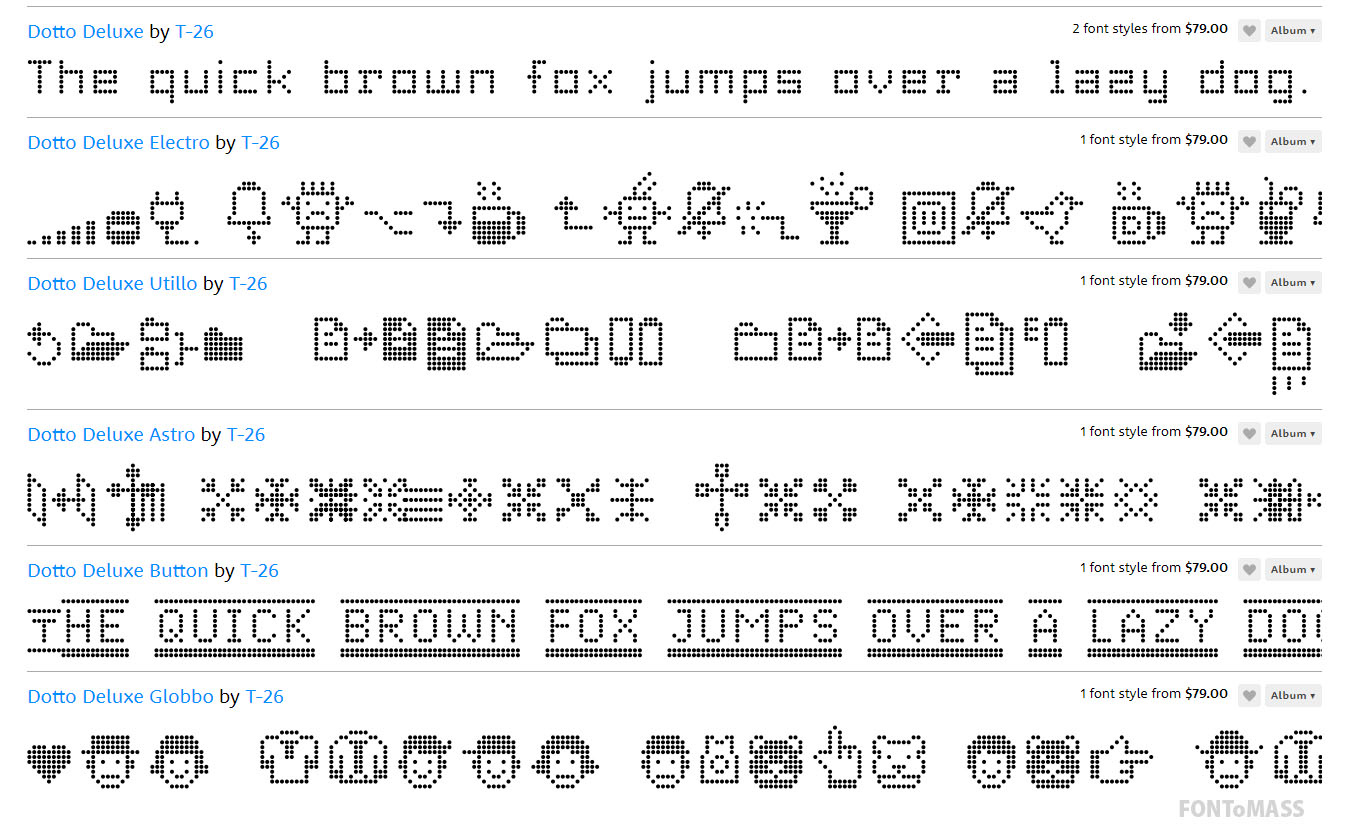
Dotto Font
This playful typeface is perfect for children's brands, toy packaging, educational materials, fun app interfaces, craft projects, birthday party decorations, whimsical logos, and creative workshop signage. Dotto Font brings delightful charm to any project where creativity and lighthearted personality need to be expressed through engaging typography.
What makes Dotto Font so exciting is its distinctive dotted design elements that create visual texture and playful rhythm. The font features carefully crafted letterforms with strategic dot patterns that add dimension and tactile appeal to every character. Each glyph demonstrates thoughtful attention to maintaining readability while incorporating unique dotted details that spark curiosity and engagement. The typeface's whimsical nature creates an immediate sense of fun and creativity, making it perfect for brands and projects targeting audiences who appreciate innovative design approaches and interactive visual experiences.
The Dotto Font includes versatile style options: Regular, Bold, Outlined, and Filled variations. This creative collection allows designers to experiment with different visual effects and create layered compositions that highlight the font's distinctive dotted characteristics. Each style maintains the typeface's playful personality while offering unique presentation possibilities for various creative applications and design themes.
This inventive typeface represents the perfect solution for designers seeking to add distinctive personality and creative flair to their projects through uniquely crafted typography.